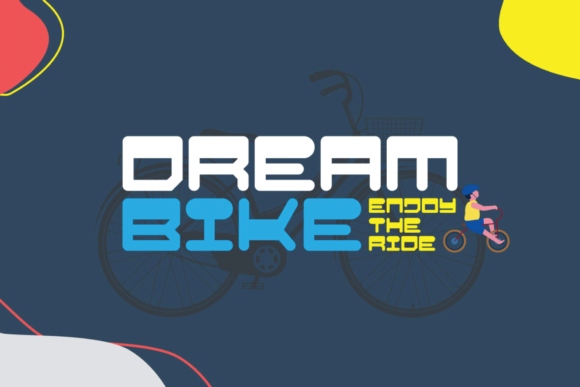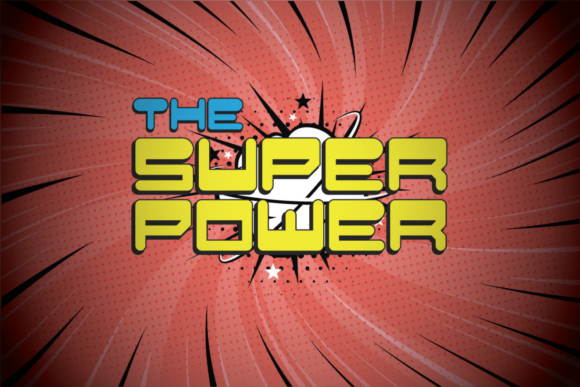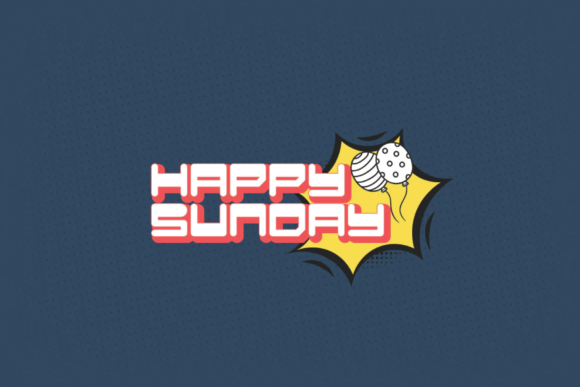
Introduction to Pop Boy Font
Have you ever been working on a creative project, staring at a blank canvas, trying to bring your idea to life? It’s that moment when you need the perfect design resource to make your vision pop. That’s exactly what I was looking for when I stumbled upon the Pop Boy Font. Its playful, comic-styled display font was the missing piece I needed to take my design to the next level.
What I love about the Pop Boy Font is its versatility. Whether you’re working on a free download or a high-quality commercial project, this font is sure to add a touch of whimsy and fun. With a transparent background, it’s easy to incorporate into any design, making it a valuable asset for designers of all levels.
As a designer, having access to high-quality fonts like the Pop Boy Font can be a game-changer. It’s not just about aesthetics; it’s about communicating your message effectively and making your ideas shine. With the Pop Boy Font, you’ll be able to create spectacular designs that leave a lasting impression on your audience.
Key Features of Pop Boy Font
- High-quality design resource with a unique, playful style, perfect for creative projects.
- Comes with transparent background, allowing for seamless integration into any design.
- Features a bold, eye-catching font with a fun and energetic feel, ideal for modern designs.
- Includes a wide range of characters, including uppercase and lowercase letters, numbers, and punctuation marks.
- Supports resolutions up to 300 DPI, ensuring crisp and clear display in various print and digital applications.
- Designed to be highly legible, making it perfect for use in headings, titles, and body text.
Honest Review: Pop Boy Font
As a designer, I’m always on the lookout for new and exciting fonts to enhance my creative projects. Recently, I stumbled upon the Pop Boy Font and was eager to give it a try.
First impressions are everything, and the Pop Boy Font does not disappoint. The moment I opened the font file, I was struck by its unique and playful style. The font is perfect for adding a touch of whimsy to any design project, from social media graphics to advertisements.
Here are some of the things I love about the Pop Boy Font:
- ✨ Unique and playful style that’s perfect for creative projects
- ✨ High-quality font that’s crisp and clear even at large sizes
- ✨ Transparent background, making it easy to overlay on any image
However, I do have a few minor complaints:
- ⚠️ Limited character set, which may be a problem for designers who need to use special characters
- ⚠️ May not be suitable for formal or professional projects due to its playful style
Overall, I’m thoroughly impressed with the Pop Boy Font. It’s a great addition to any designer’s toolkit and is perfect for adding a touch of fun and personality to creative projects. Just be aware of its limitations, and you’ll be good to go!
To get the most out of the Pop Boy Font, use it with a transparent background to create a unique and eye-catching design. You can also experiment with different font sizes and colors to achieve the desired effect.
The Pop Boy Font is perfect for creating invitations, social media graphics, and branding materials. Its high-quality design and versatility make it an excellent choice for any creative project.